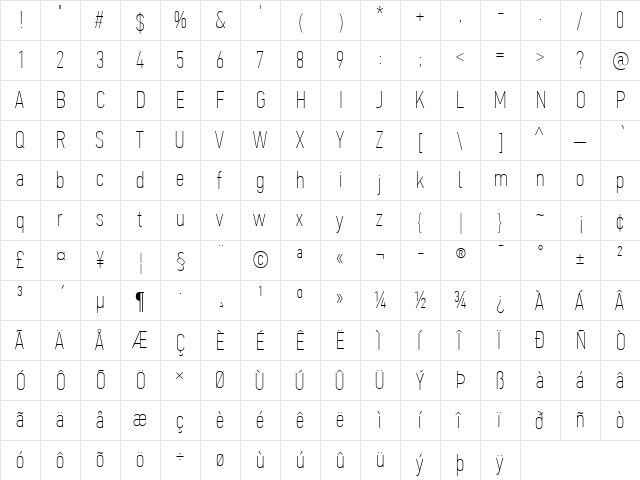
PF Din Text Comp Pro Extra Thin
Design Context for PF Din Text Comp Pro Typeface
PF Din Text Comp Pro offers clean, dependable letterforms without strong stylistic allegiance, making it a practical choice for designers who need flexibility. Its slender proportions lend an understated elegance to any composition.